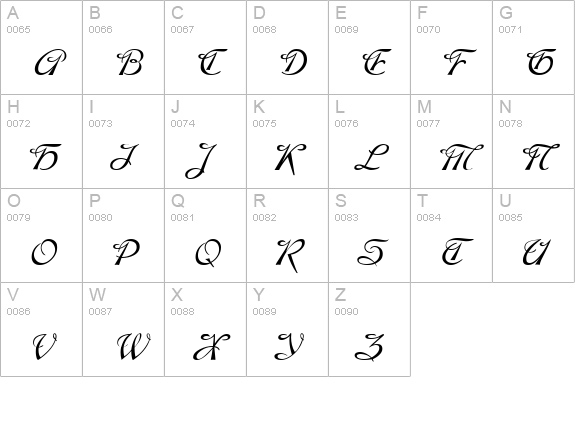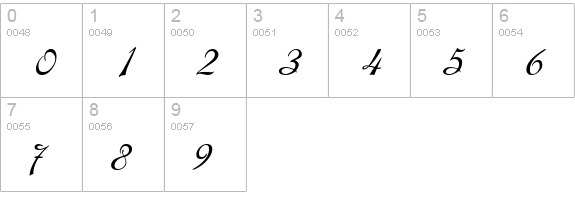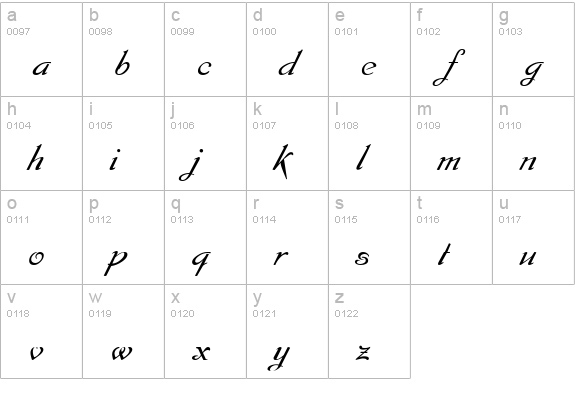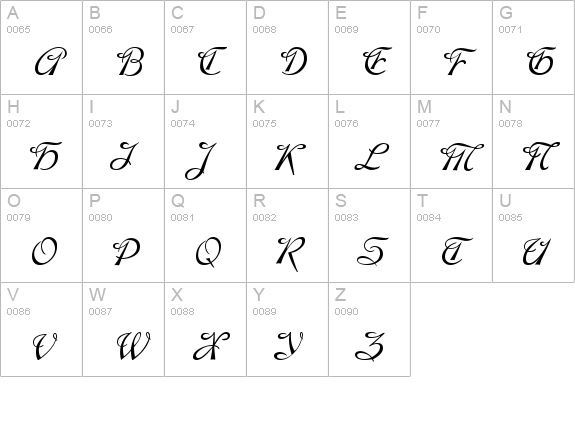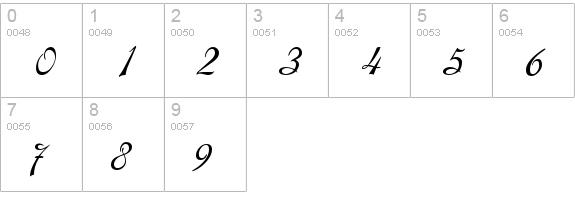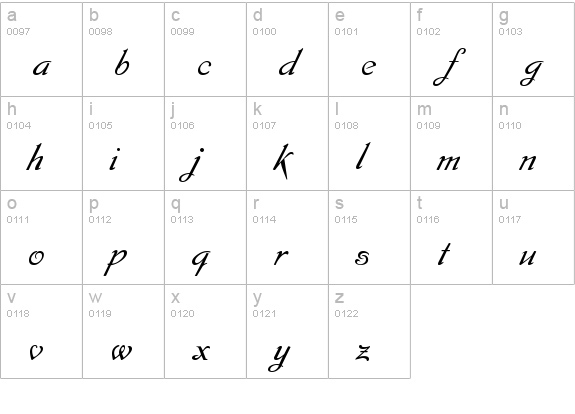
Montague font is a beautifully crafted typeface that exudes elegance and sophistication. With its clean lines and modern aesthetic, Montague is the perfect choice for projects that require a touch of refinement. Its versatile design makes it suitable for a wide range of applications, from branding to editorial design. What sets Montague font apart is not only its stunning appearance but also the fact that it is available for free download at FontsMarket.com. This means that you can add this exquisite font to your collection without breaking the bank. Whether you are a designer looking to elevate your work or a business owner in need of a stylish font for your branding, Montague font is sure to impress. Download it today and see for yourself the impact it can make on your projects.